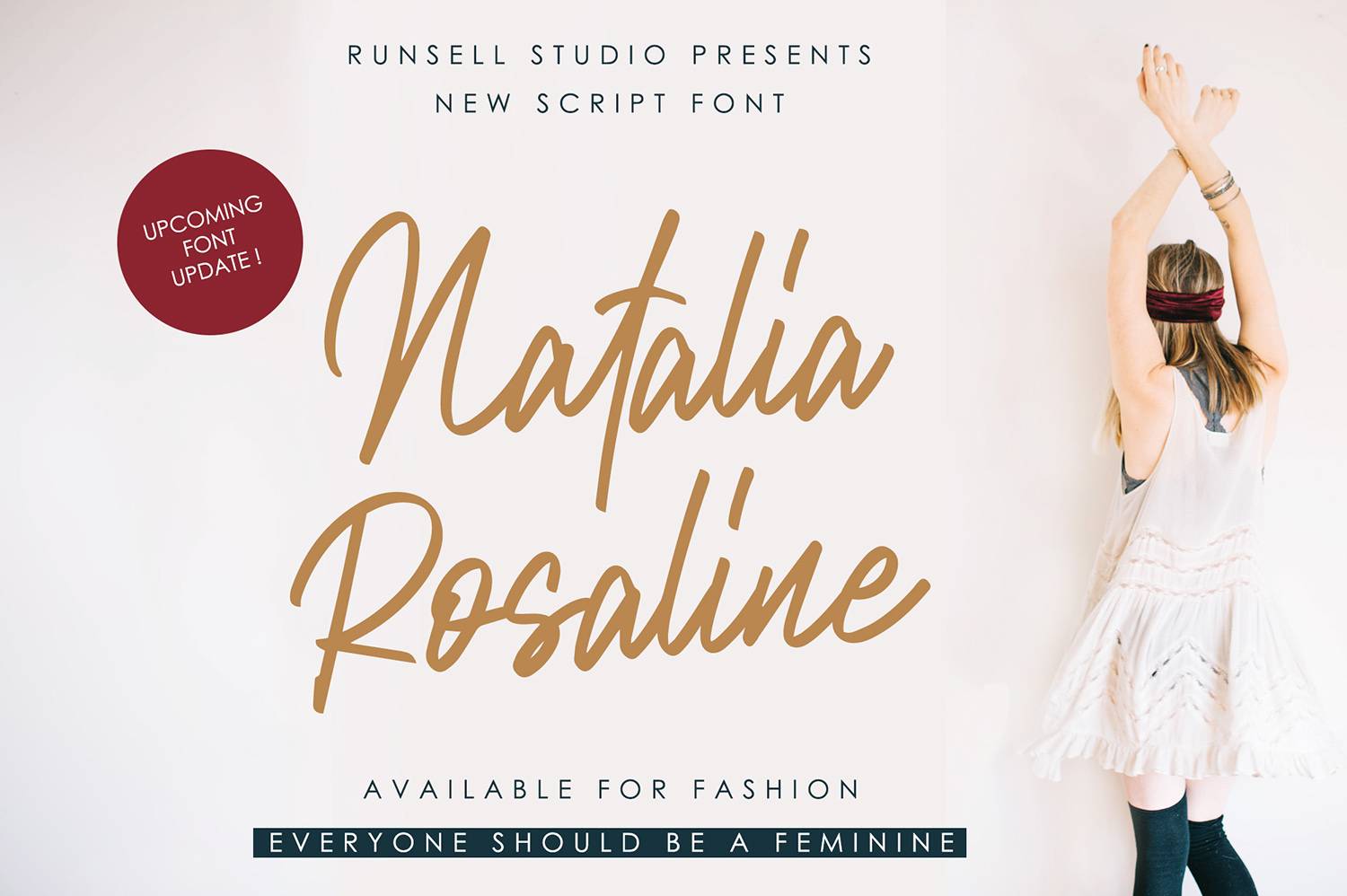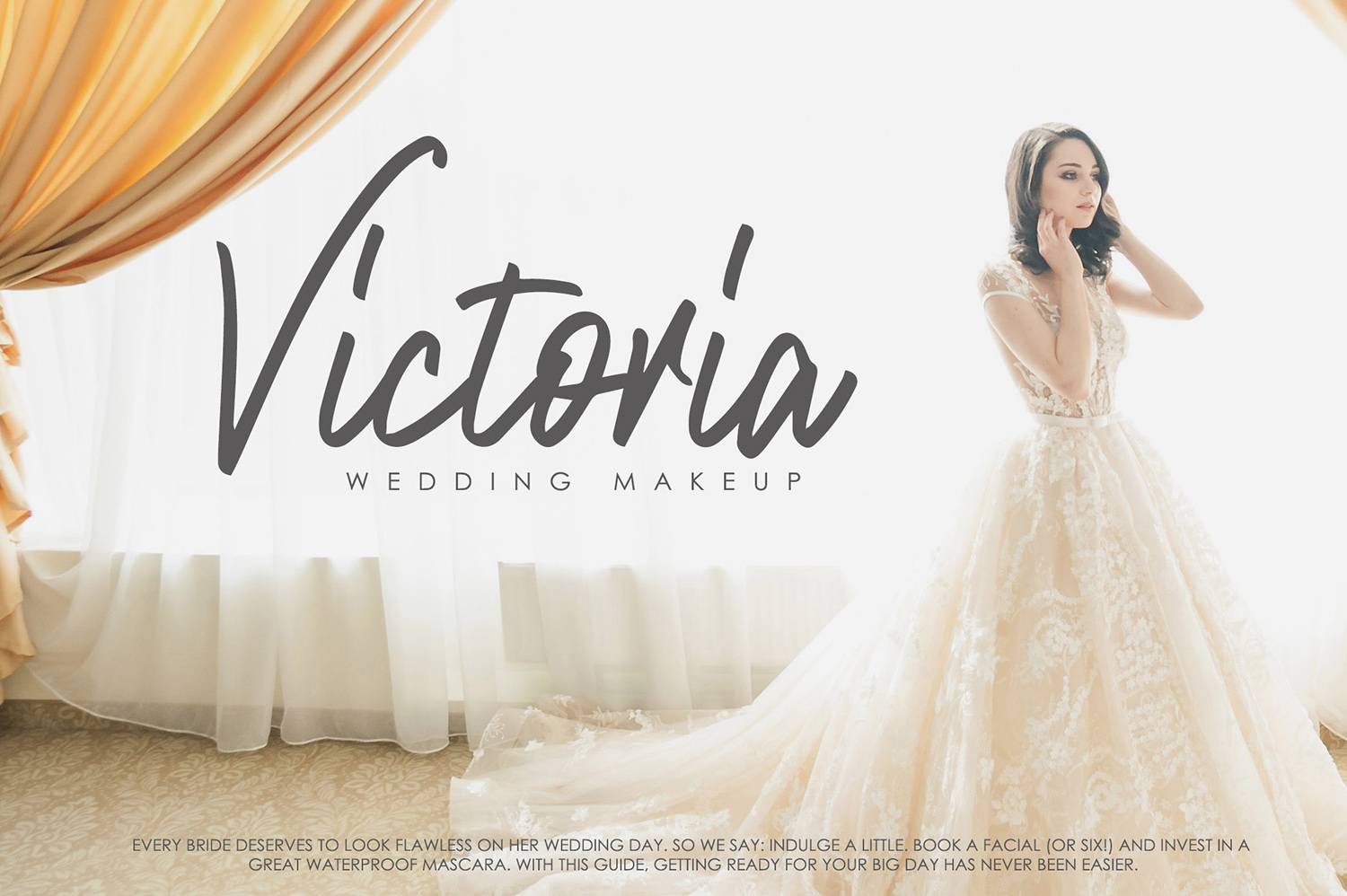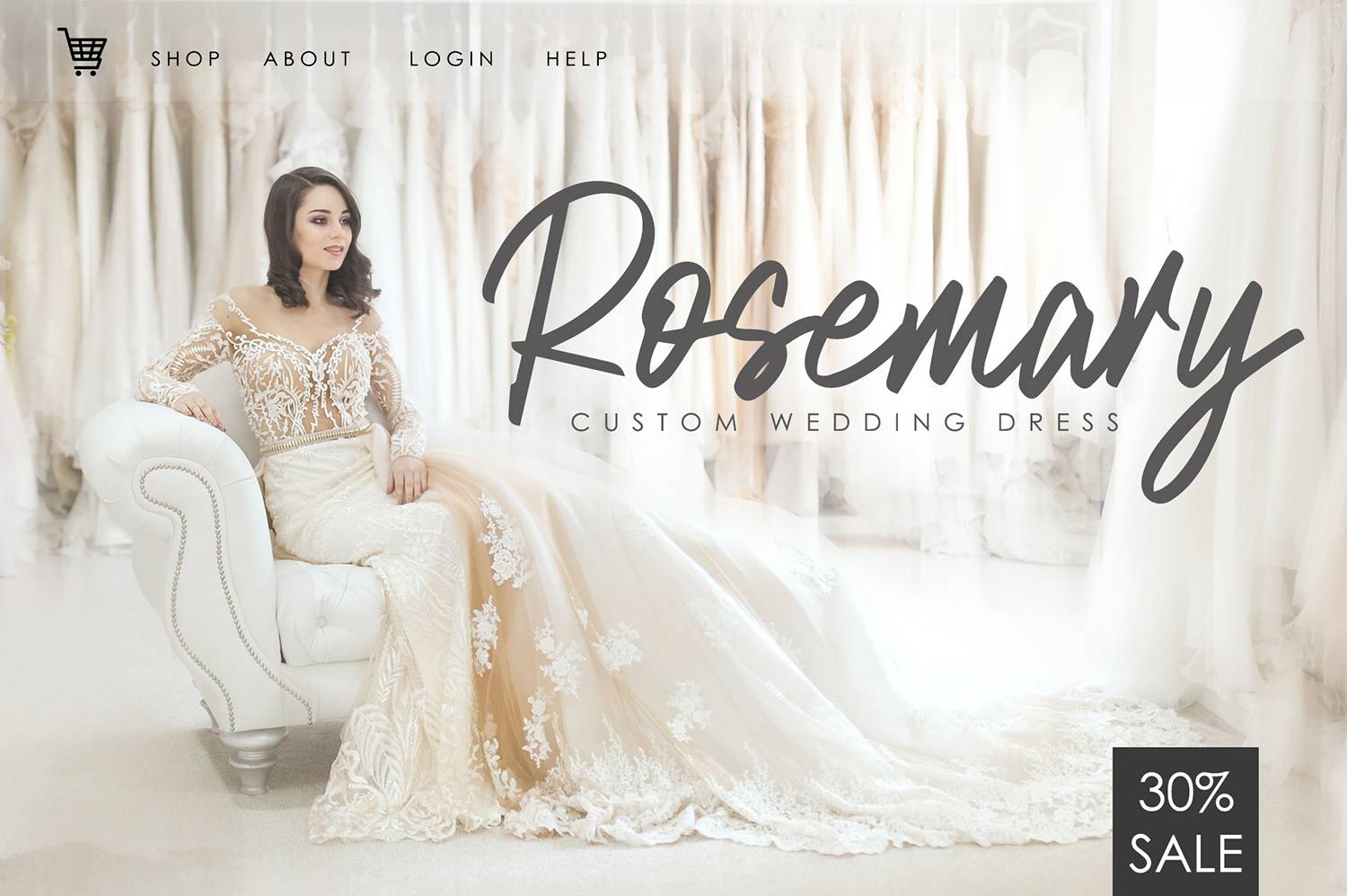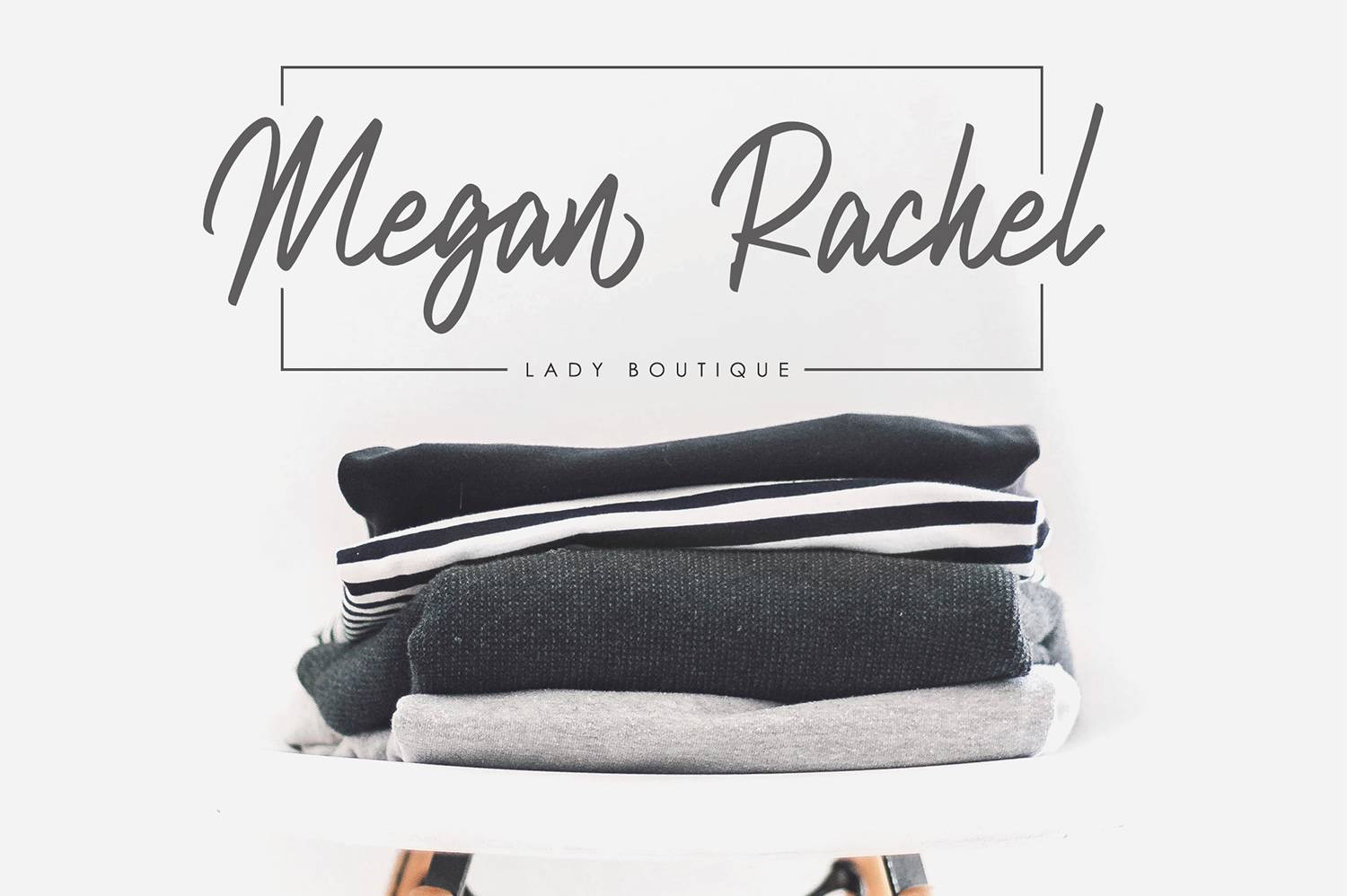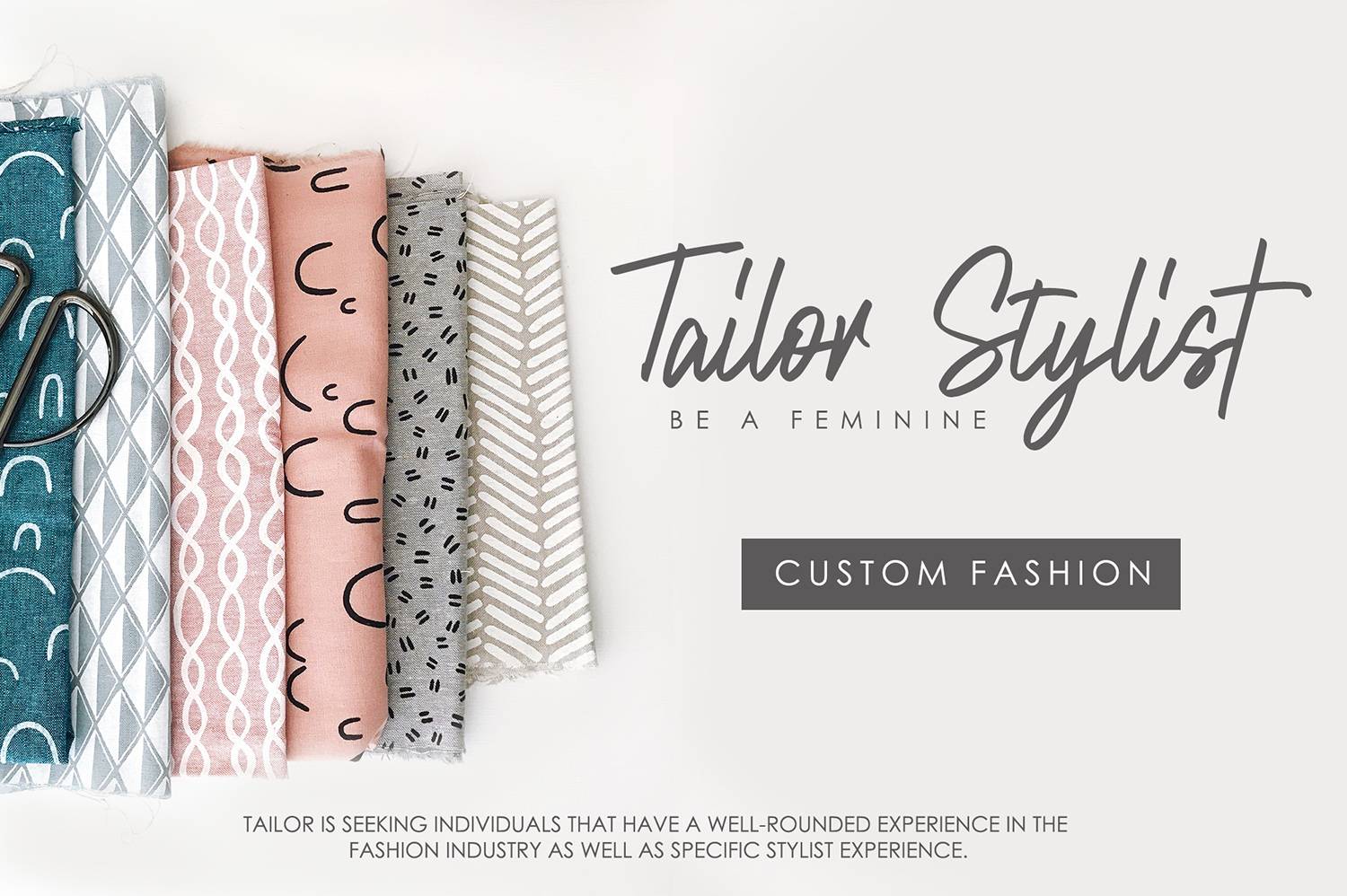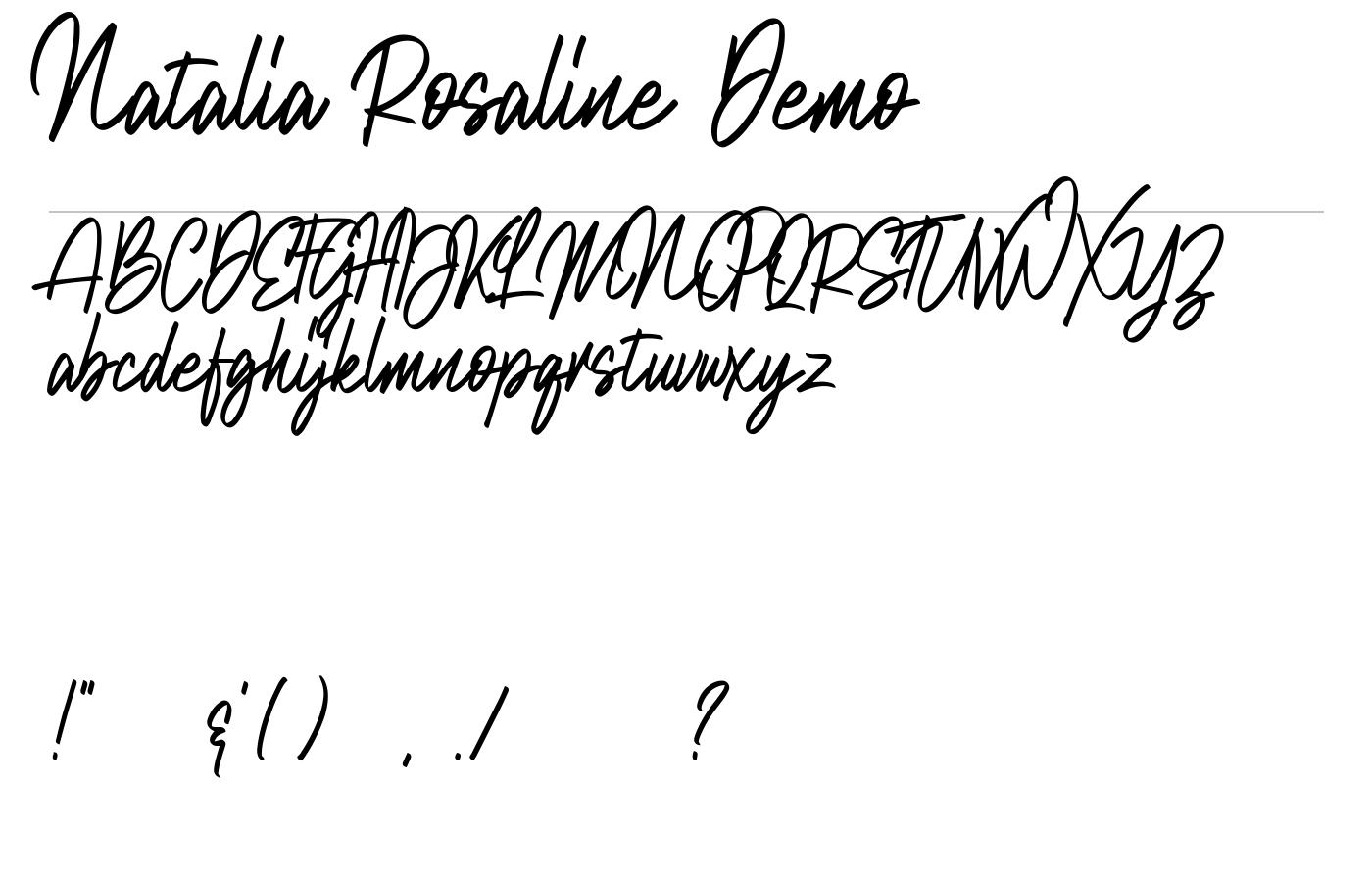
Natalia Rosaline is a flowing, elegant script font with a casual, handwritten feel. Its slender, dynamic strokes and slightly condensed letterforms give it a lively yet refined look, ideal for adding a personal, stylish touch to invitations, branding, or social media graphics. This font works beautifully where a warm, approachable, and sophisticated atmosphere is desired.
Natalia Rosaline Font
About Natalia Rosaline Font